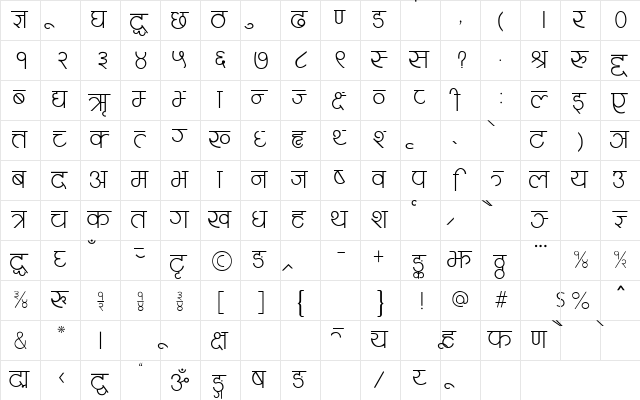
Navjeevan Regular
Design Context for Navjeevan Typeface
Navjeevan offers clean, dependable letterforms without strong stylistic allegiance, making it a practical choice for designers who need flexibility.